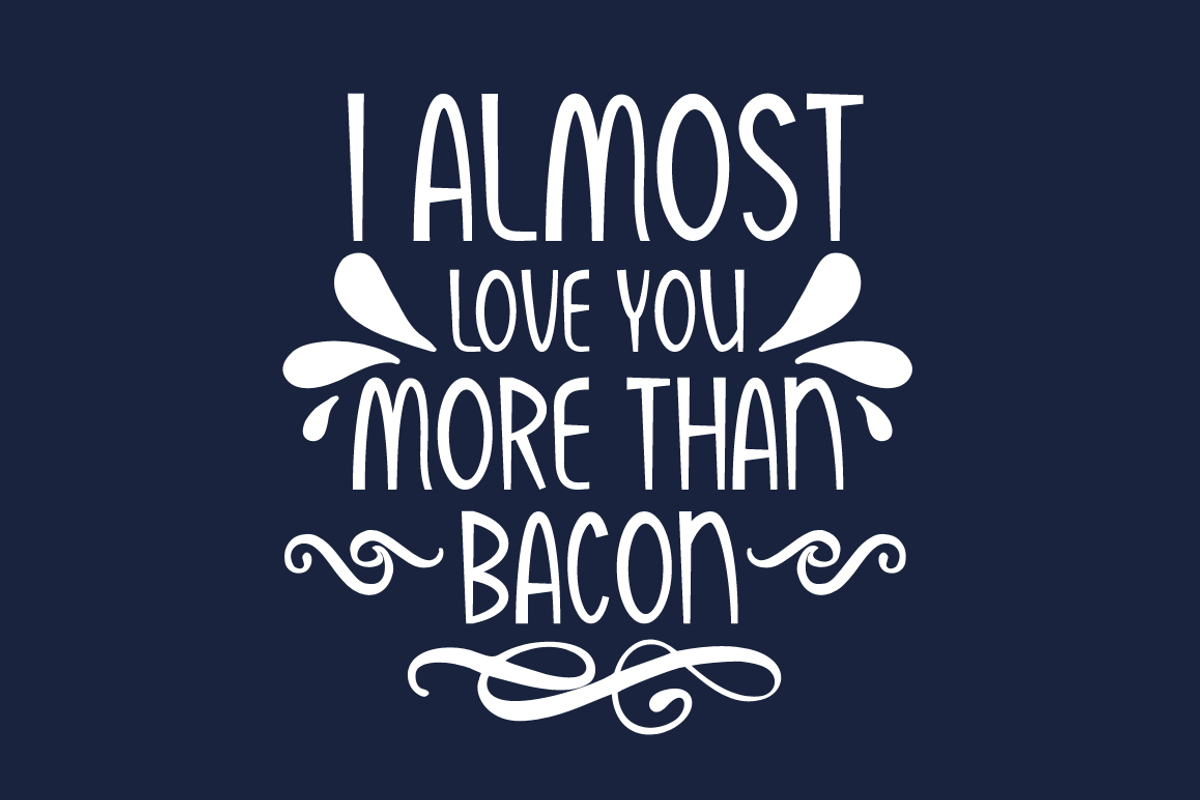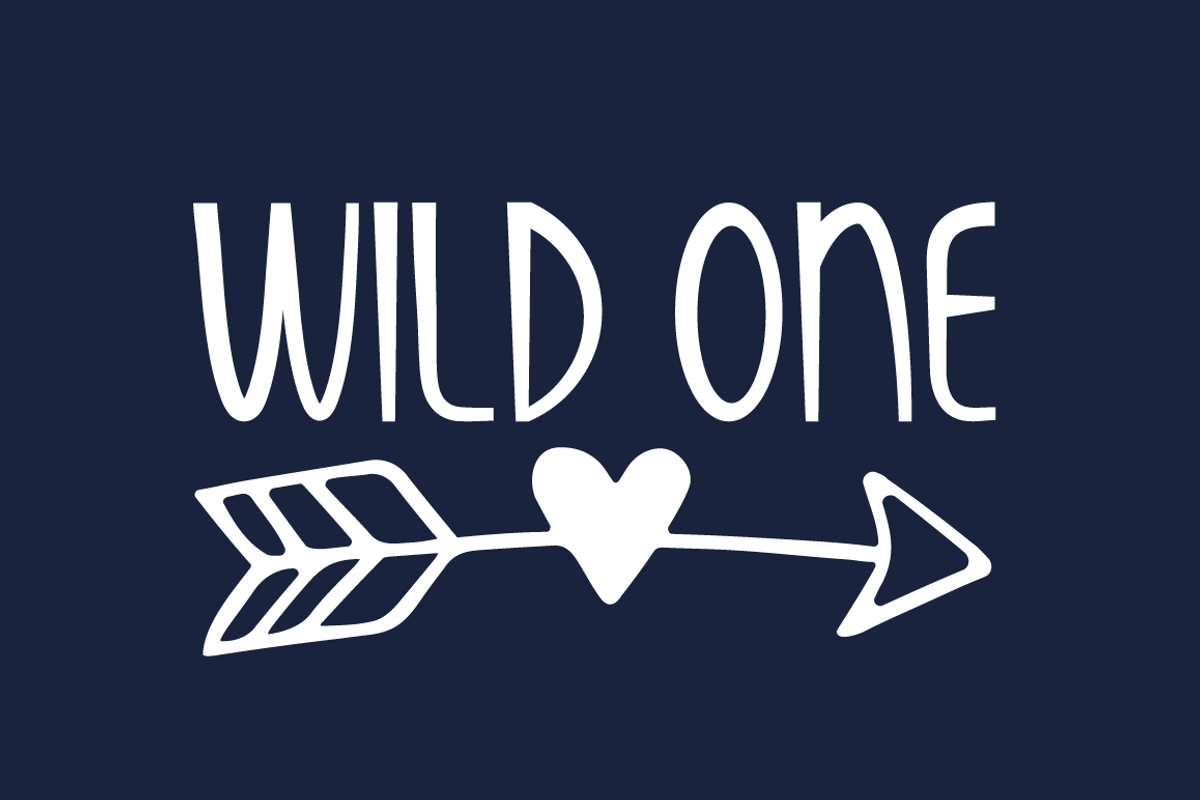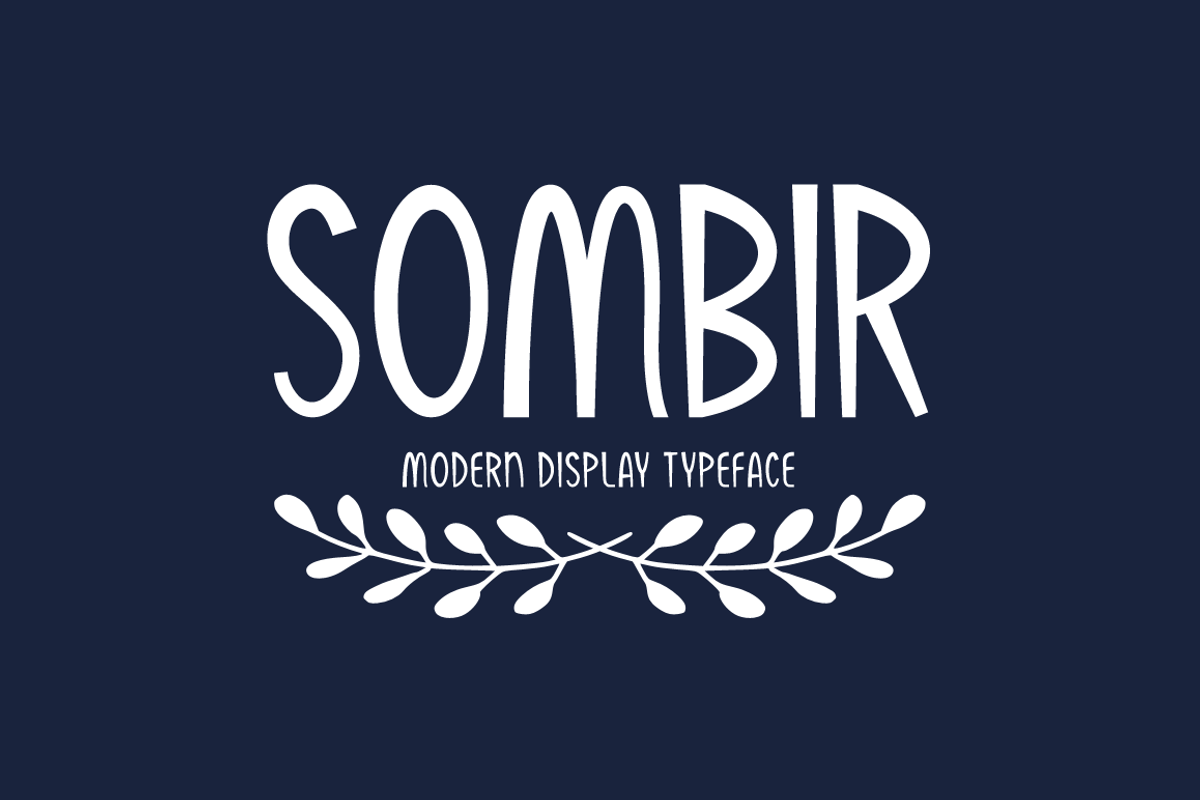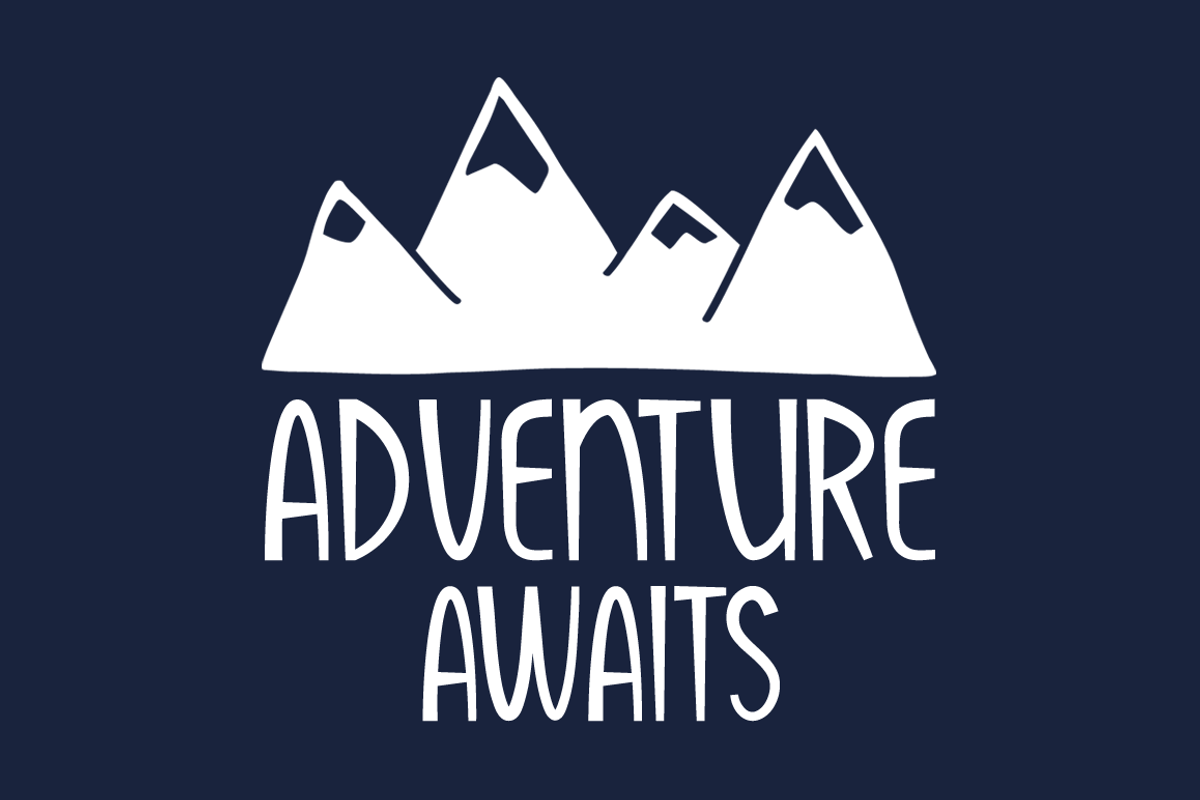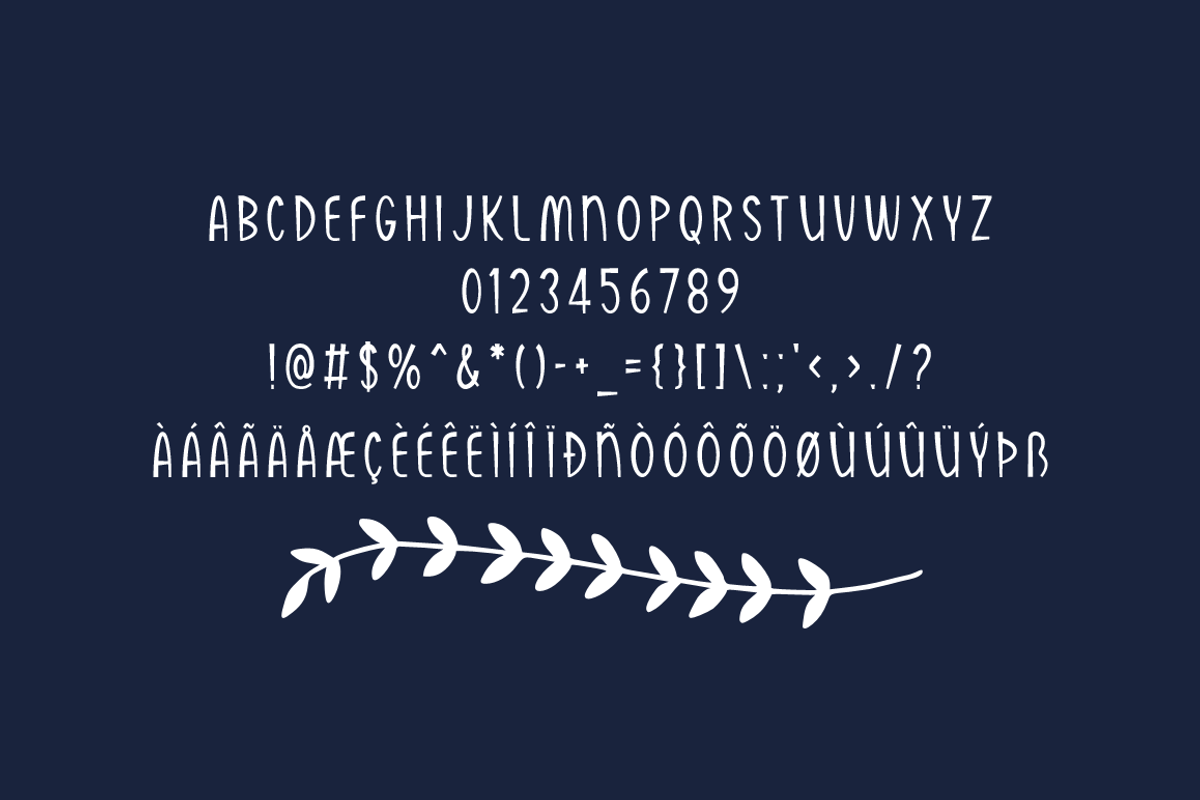
Sombir Typeface
Sombir is a brand new display font. Sombir is perfectly suited for stationery, logos, t-shirt, paper, print design, website header, photo frame, flyer, music cover, poster, image slider and much more.
- Includes a range of multilingual support
Sombir Typeface by Seemly Fonts fits naturally into Branding, posters, packaging, typography.